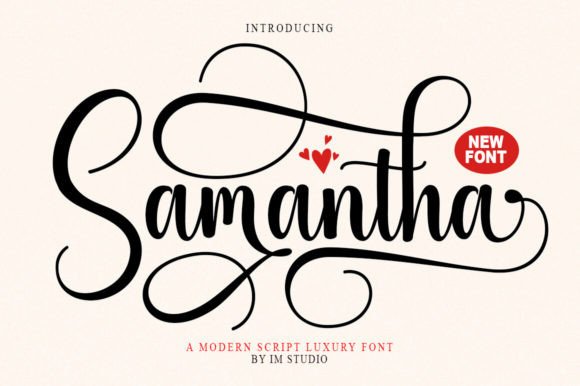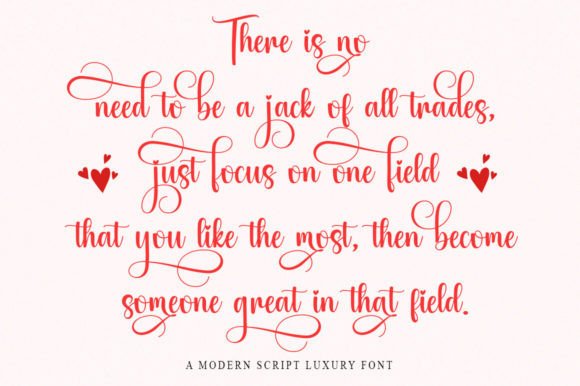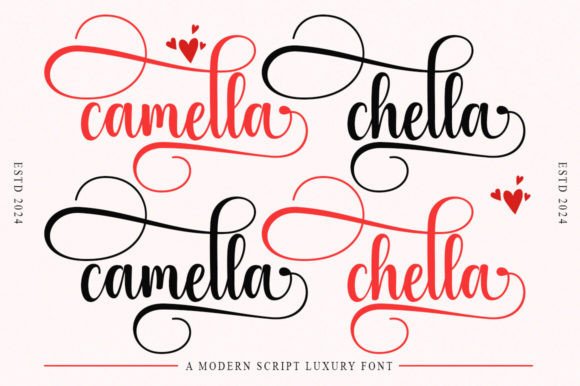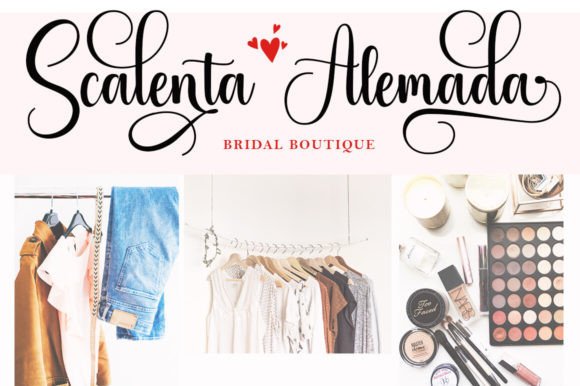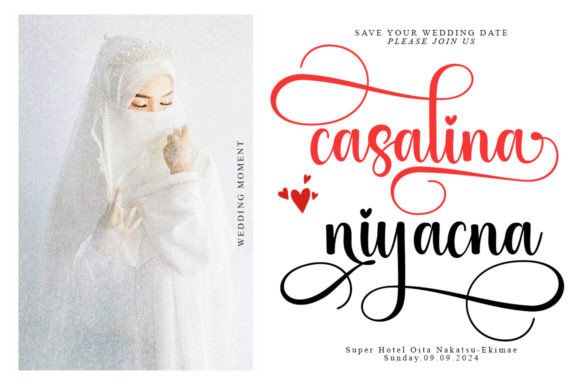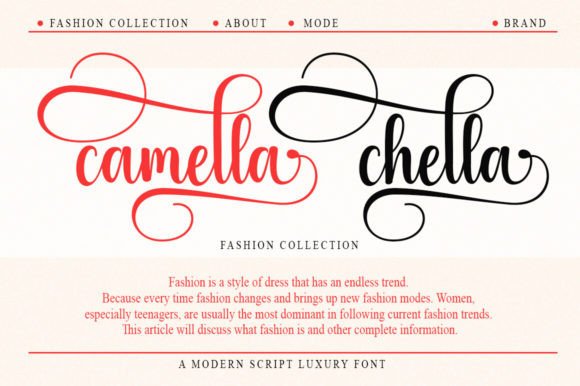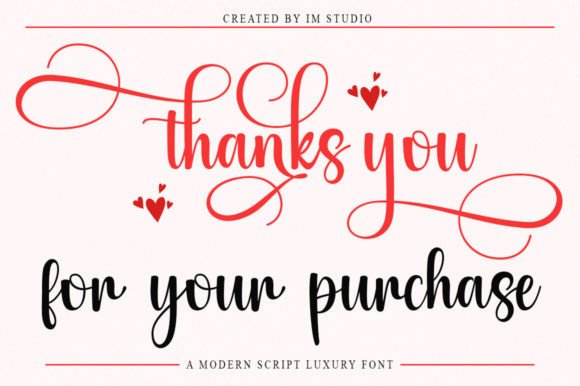
Samantha Font
Samantha is a romantic and sweet calligraphy typeface with characters that dance along the baseline. It has a casual, yet elegant touch.